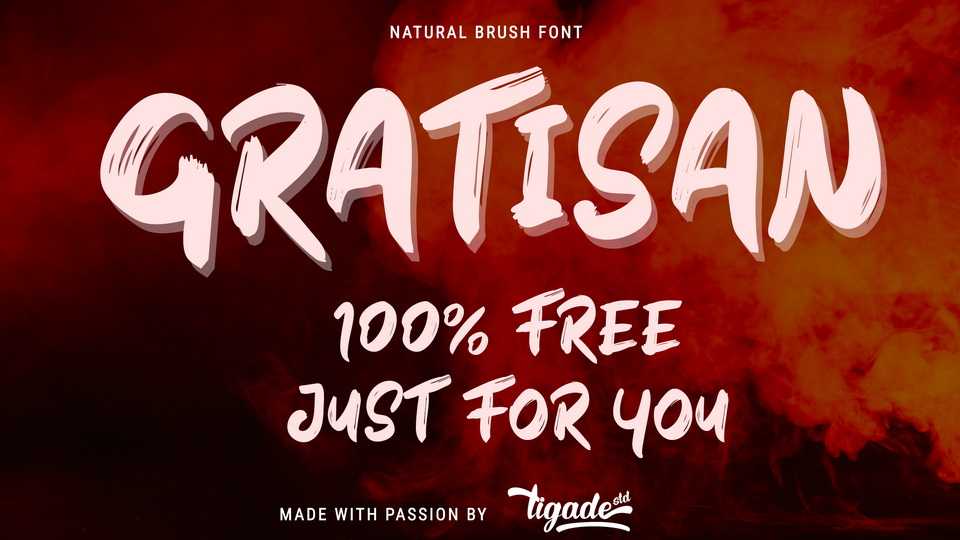
Download Gratisan font, a natural hand painted brush typeface. Gratisan is perfect for designing big impact headlines, eye catching social media and marketing posts, and attention-grabbing product packaging and branding projects.
Designer: Tigade Std